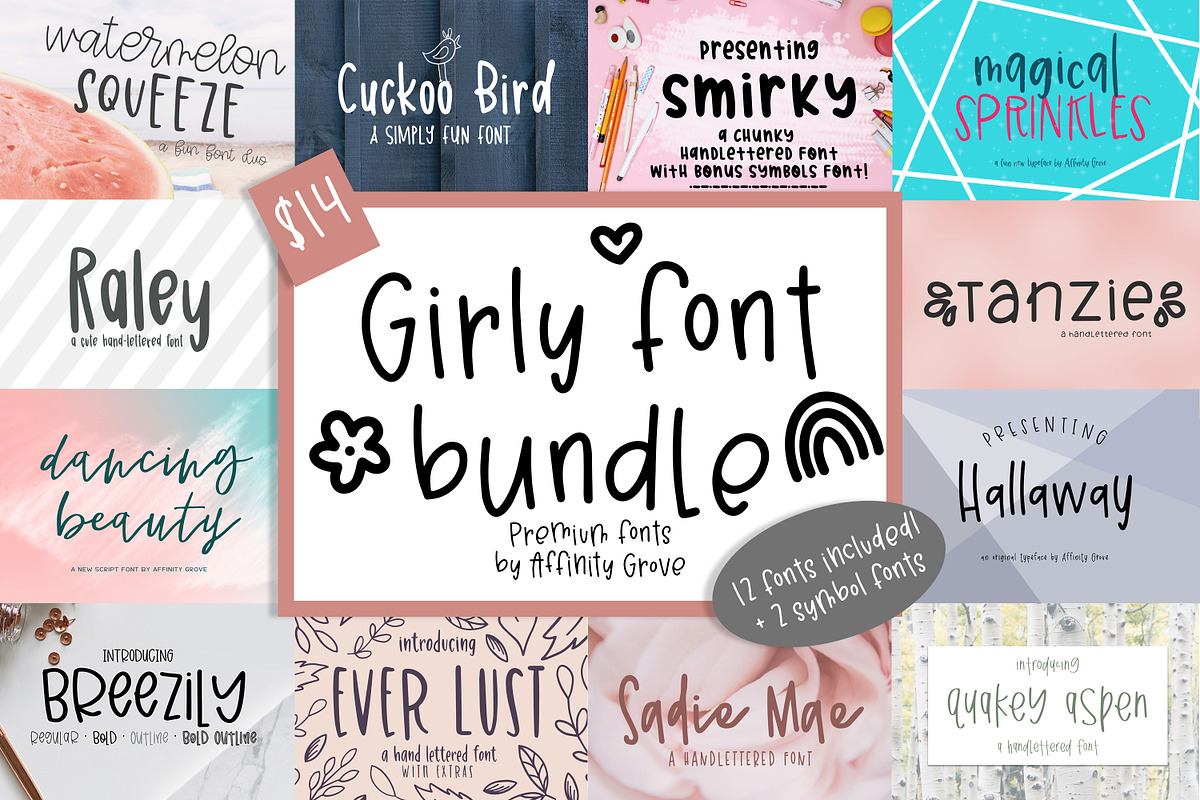
Girly Font Bundle Free Download is a fun and stylish collection of fonts designed to bring a playful and feminine touch to your projects. This bundle typically includes a variety of handwritten, script, and serif fonts that are perfect for creating girly, chic, and whimsical designs.
Whether you're working on logos, invitations, greeting cards, social media graphics, or any design that needs a soft and sweet vibe, the Girly Font Bundle provides you with the tools to make your typography stand out. With a mix of flowing scripts and cute, bubbly serif fonts, this collection is ideal for personal branding, weddings, or any design that aims to evoke joy and elegance.